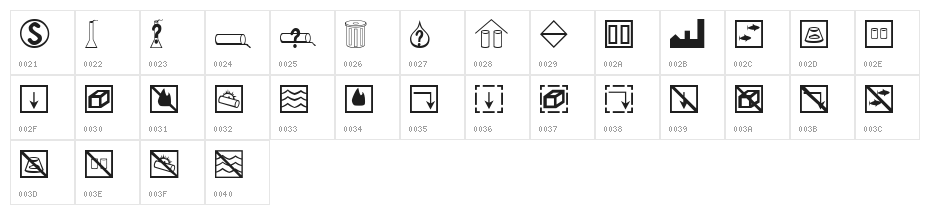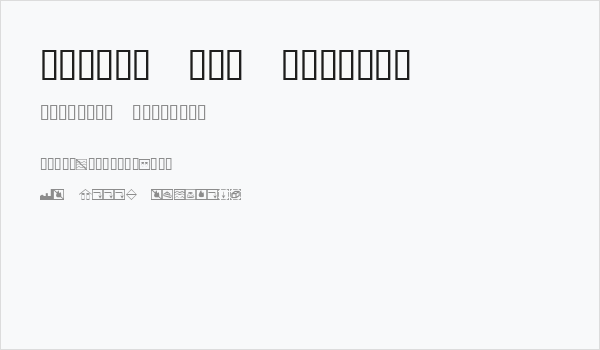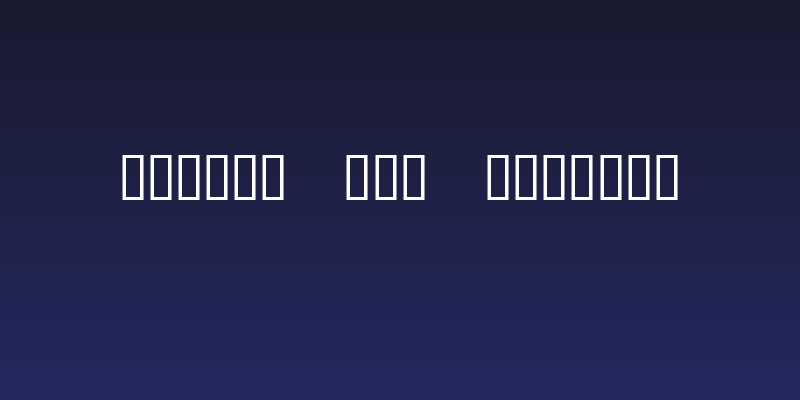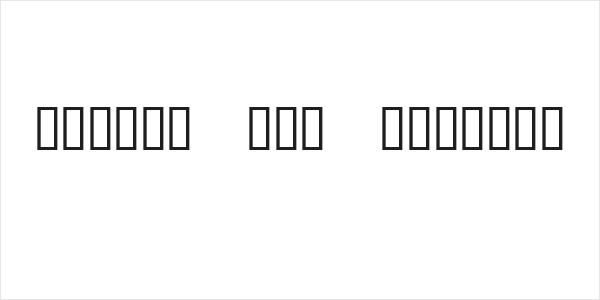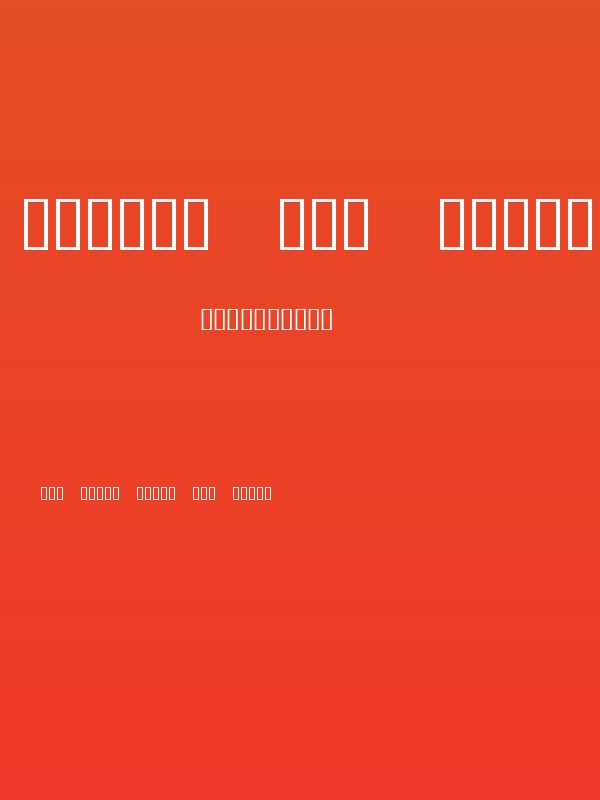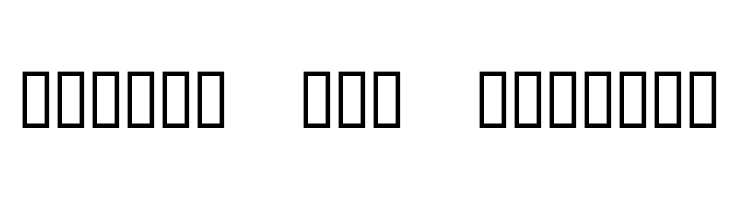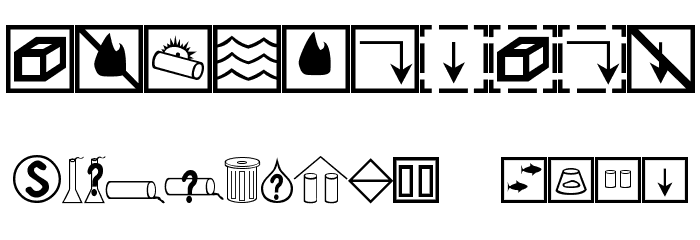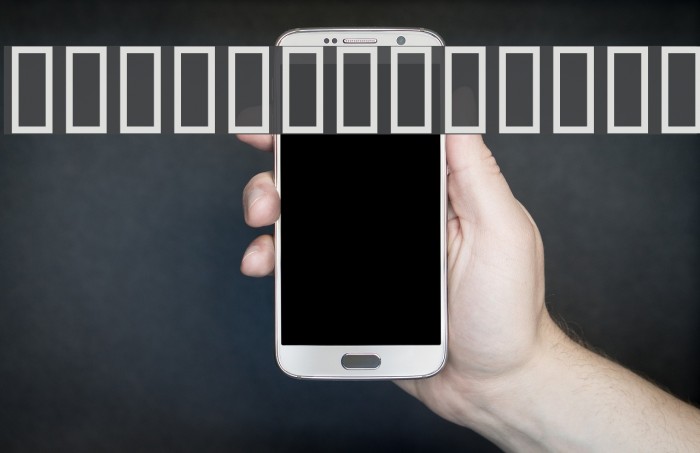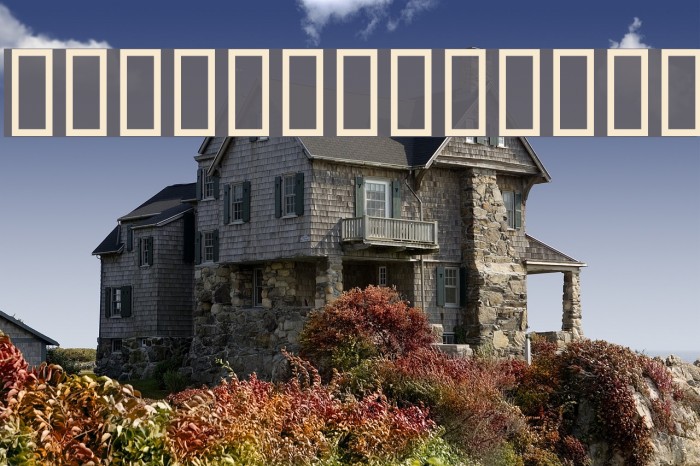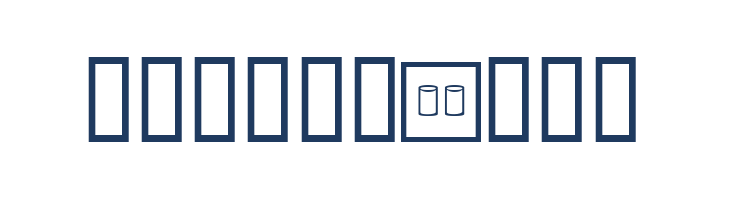
BCMELP EPD Symbols Font
A collection of industrial and safety-themed pictograms, featuring bold, geometric icons such as boxes, flames, logs, water, arrows, laboratory equipment, and waste bins. The symbols are enclosed in thick, square borders, providing high visibility and clarity for signage or instructional use.
| Overall Style | Industrial, Functional, Modern |
| Use Case | Signage, Labels, Manuals, Posters |
| Proposed Projects | Safety signage, industrial manuals, instructional diagrams, packaging labels, workplace posters. |